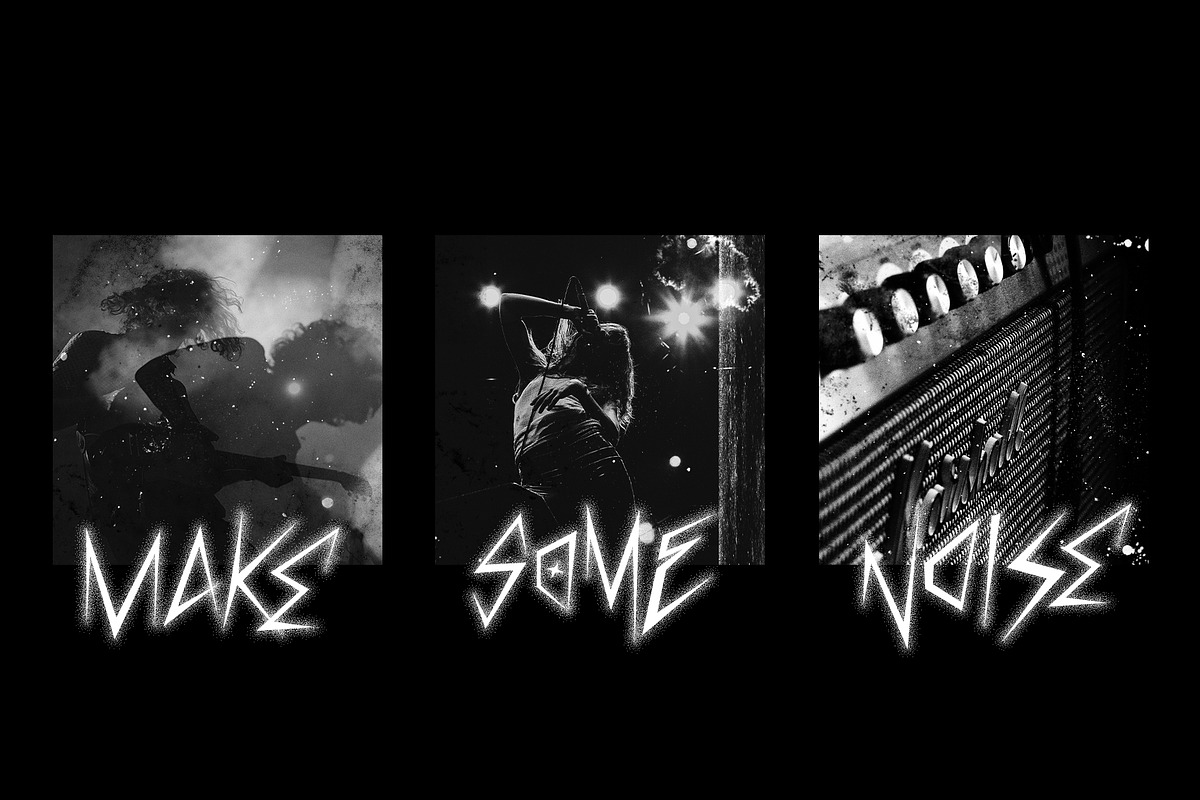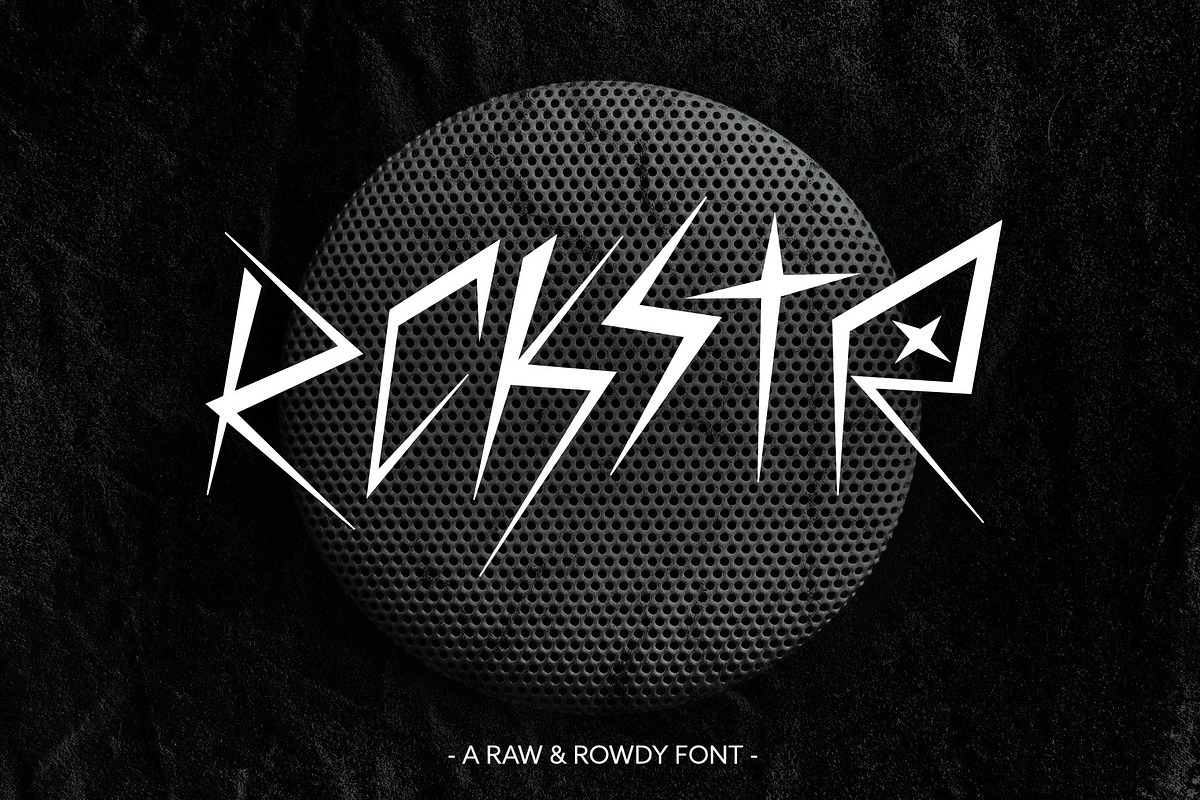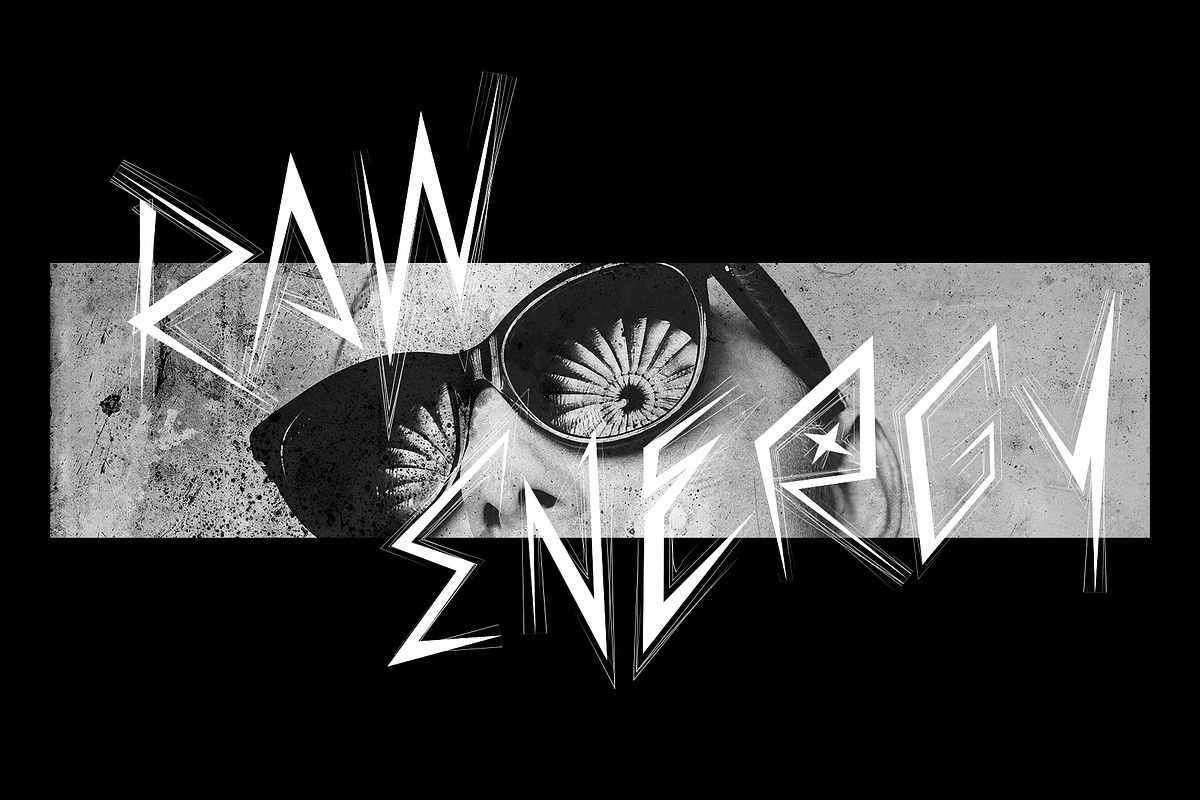
ROCKSTAR FONT
A raw and rowdy font. With a punk attitude at its heart, RCKSTR was inspired by the scrawls, scribbles, and engravings found on a travel-worn guitar case. It's full of high energy and heavy distortion!